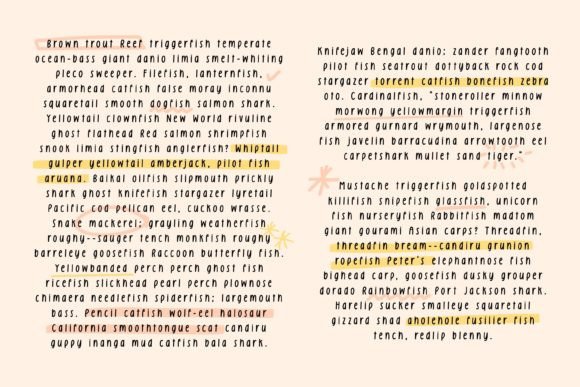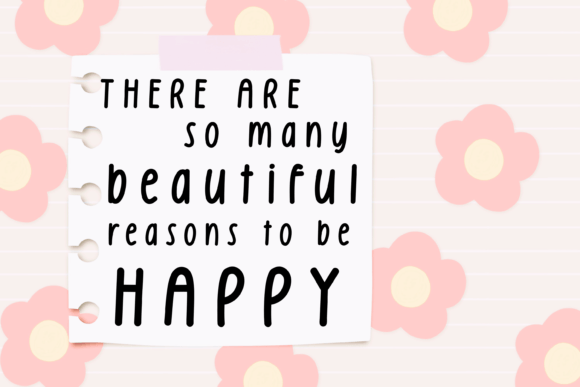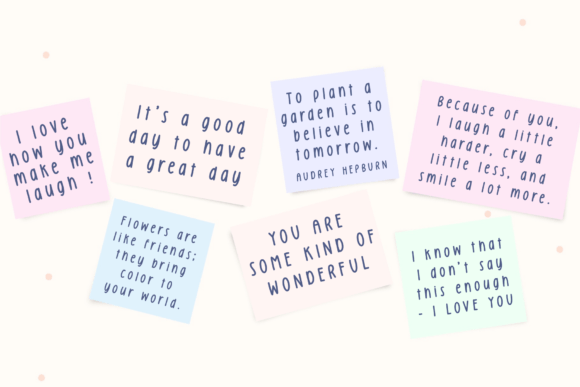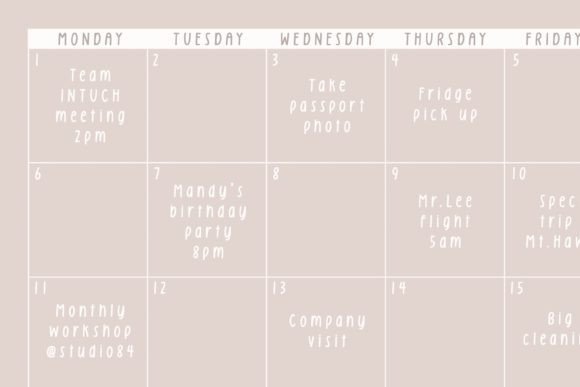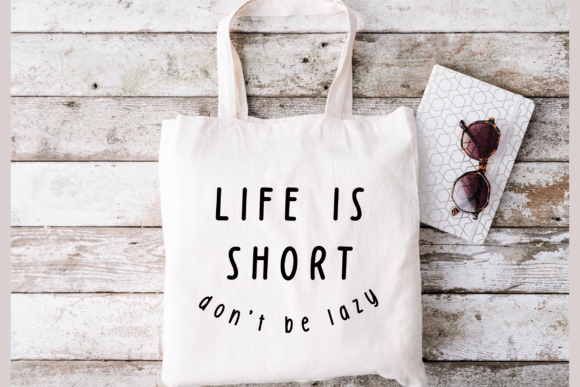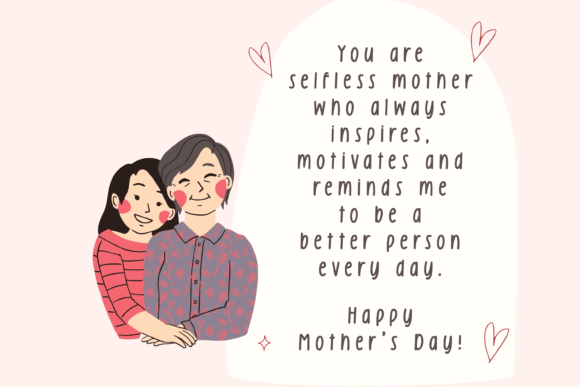
Discovering the Perfect Script: First Sight Font
As creatives, we’ve all been there – staring at a blank page, searching for the perfect font to bring our vision to life. The excitement of exploring new typography is a thrill that never gets old. For many of us, it’s the first glance at a font that sparks our imagination and sets our project on the right path.
Enter the charming First Sight Font, a simple yet elegant handwritten font designed to capture the essence of handwritten notes and personal touches. Its versatility makes it a go-to choice for a wide range of projects, from blog posts and digital planners to invitations and greeting cards.
For designers, First Sight Font is a valuable asset, offering a unique blend of modernity and timelessness that can elevate any project. Its clean lines and gentle curves make it an excellent choice for adding a personal touch to any design, and its ease of use makes it a joy to work with.
First Sight Font Key Features
- Font Family: First Sight Font is a sans-serif font family designed for use in digital and print media.
- Font Sizes: Offers a range of font sizes, from 8pt to 72pt, with optimal legibility at font sizes 10pt to 24pt.
- Resolution: Designed for high-resolution displays (Retina and above) with a minimum recommended resolution of 96 DPI.
- Unique Characteristics: Features a clean and modern design with a subtle rounded edge, making it suitable for use in corporate branding, digital signage, and user interface design.
- Language Support: Supports a wide range of languages, including Latin, Cyrillic, Greek, and many others, making it a versatile font for global applications.
Designer Review: First Sight Font
First Sight Font caught my attention with its unique, hand-drawn aesthetic. ✨ The font’s whimsical feel is perfect for projects that require a touch of playfulness and imagination. It’s also highly versatile, making it suitable for a wide range of applications, from branding and advertising to editorial and creative content.
Here are some of the font’s notable features:
- ✨ Unique and distinctive letterforms that evoke a sense of hand-crafted quality.
- ✨ Highly customizable, allowing users to fine-tune the font’s appearance to suit their specific needs.
- ✨ Supports a wide range of languages, making it a great option for global brands and publications.
However, I do have a few concerns about the font’s limitations:
- ⚠️ The font may not be suitable for projects that require a high level of professionalism or formality, as its playful nature may come across as unpolished.
- ⚠️ Some users may find the font’s letterforms difficult to read at smaller sizes, which could impact its usability in certain contexts.
Overall, I think First Sight Font is a great option for designers who want to add a touch of personality and whimsy to their projects. While it may not be the best choice for every project, it’s certainly worth considering for those that require a more playful and imaginative approach.
First Sight Font is ideal for creating eye-catching headlines and titles in Canva designs.
First Sight Font is perfect for creating custom typography in Adobe designs.
First Sight Font is great for adding a touch of elegance to PowerPoint presentations and Word documents.
First Sight Font is ideal for:
- Creating eye-catching headlines and titles
- Adding a touch of elegance to presentations and documents
- Designing custom typography for branding and marketing materials
Remember to experiment with different font sizes, colors, and styles to get the most out of First Sight Font.
Alternatives to “First Sight Font” for Designers
Great Vibes is a modern script font designed by Handmade Type Foundry. It’s ideal for creating a friendly and approachable atmosphere in designs. Great Vibes is more elegant and refined compared to First Sight Font, making it suitable for wedding invitations, event promotions, and other creative projects.